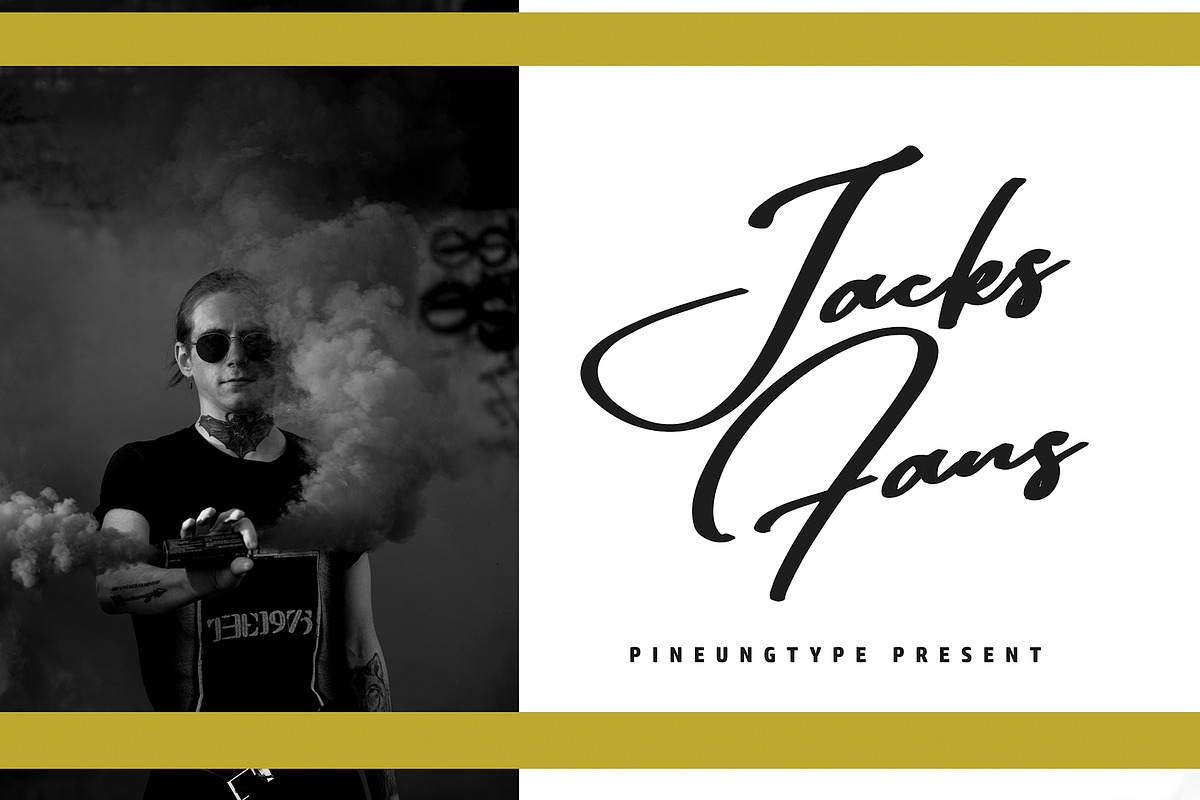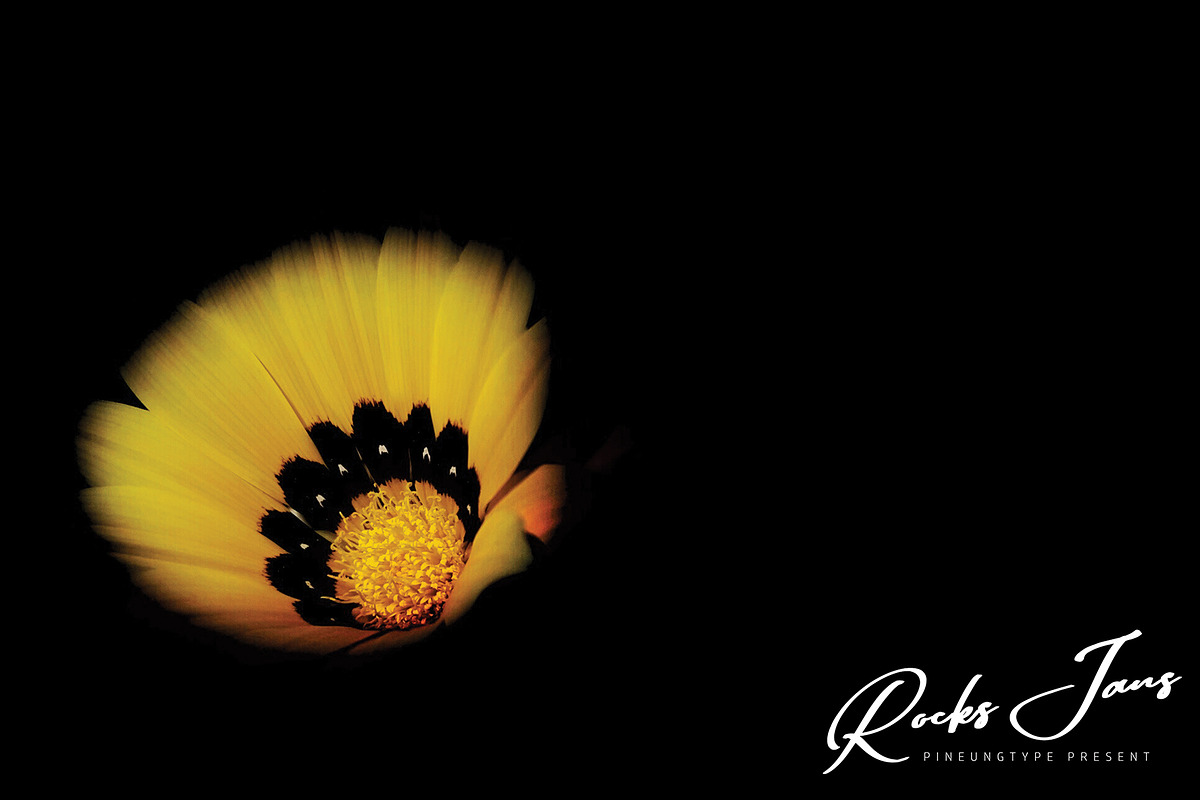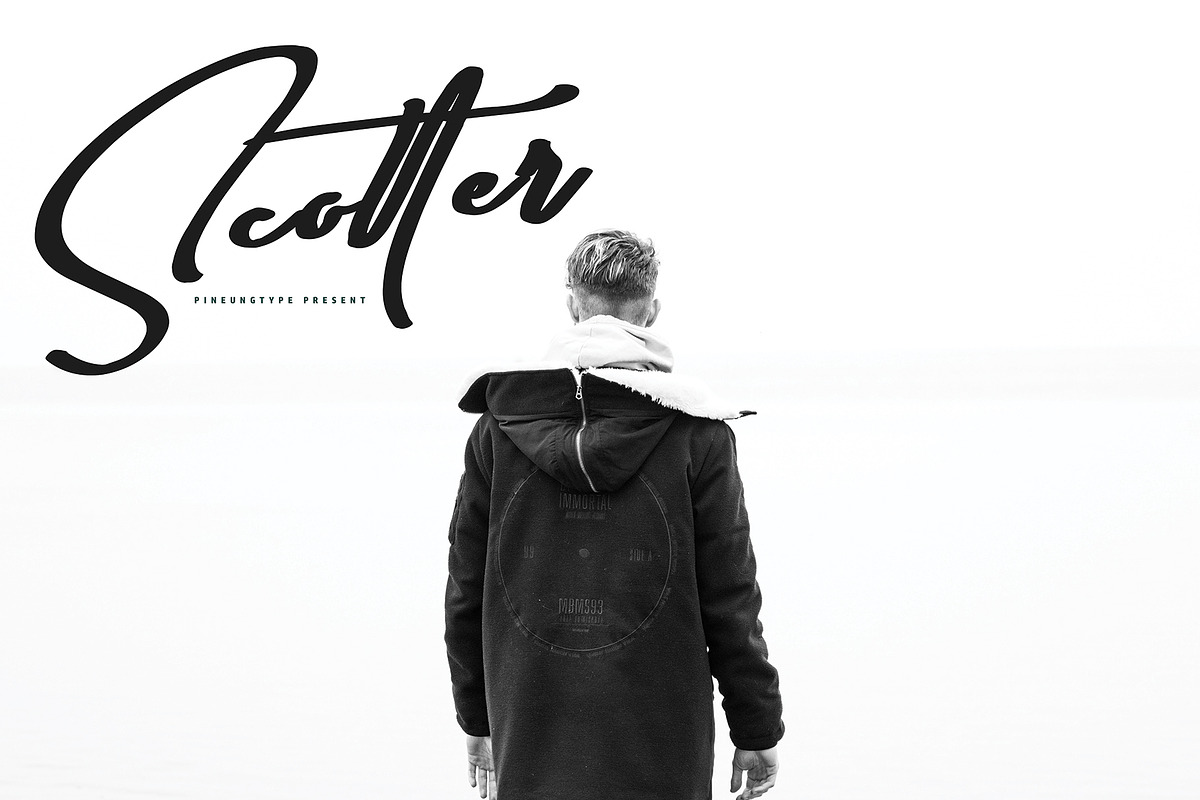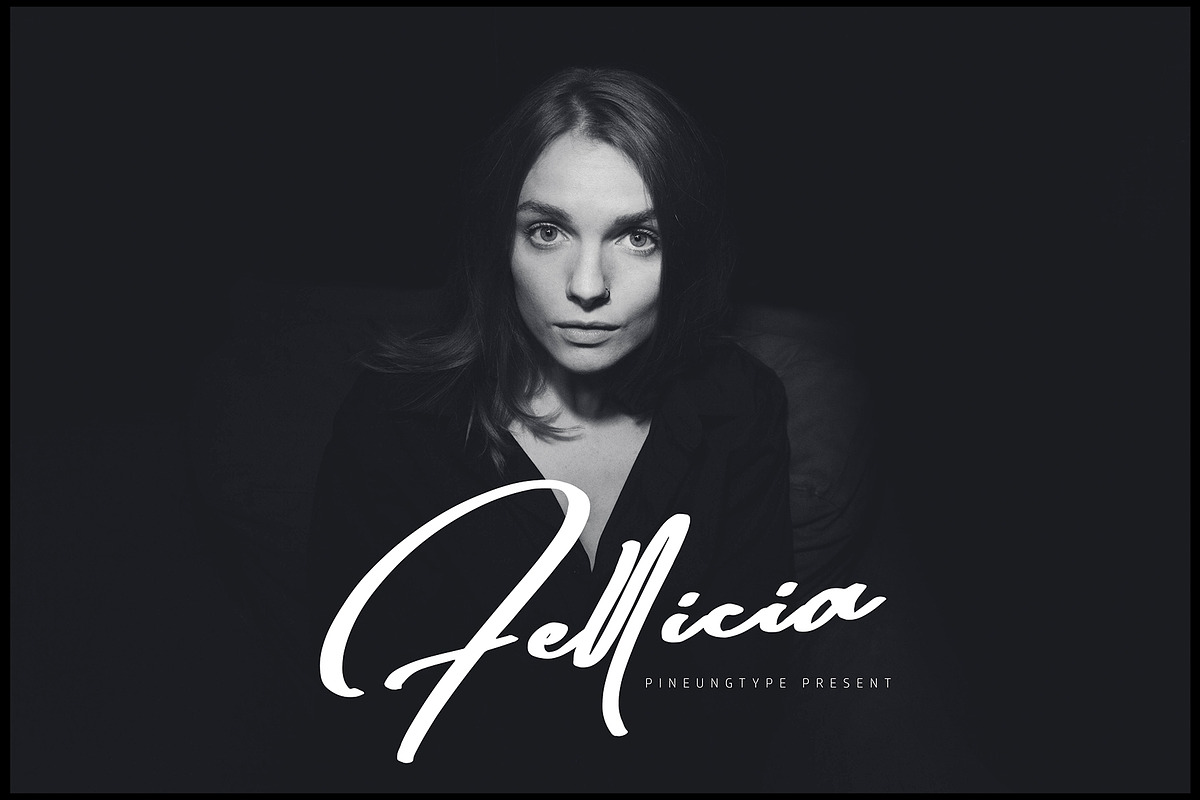
Hanttopan handwritten font with new style, this font will perfect for many different project ex: quotes, logo, blog header, poster, banding, fashion, apparel, letter, invitation, stationery, etc...